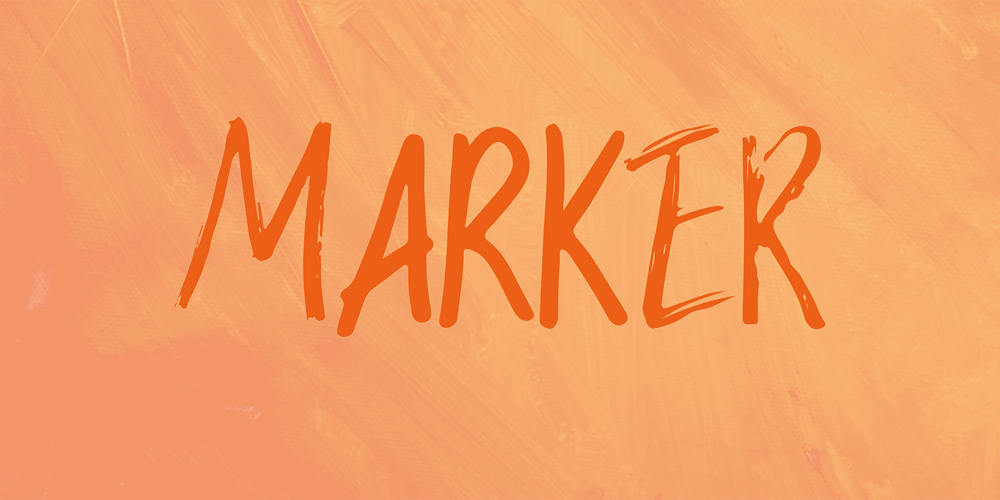
Marker Pen Font Family was designed by Fiona Clarke and published by Bonez Designz. Marker Pen contains 1 styles and family package options. Marker Pen is a typeface that refuses to act like one. With 8 versions of each glyph the typeface has a more natural and authentic handwritten style to it, making it the perfect pick if you’re looking to add a human touch to your project. With art at its heart, elevate your project and stand out from the crowd. Leave a mark on your audience with Marker Pen.